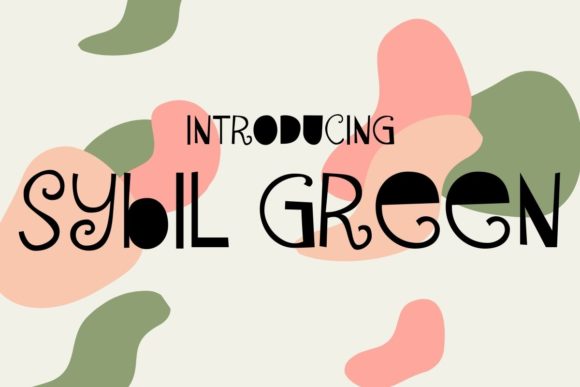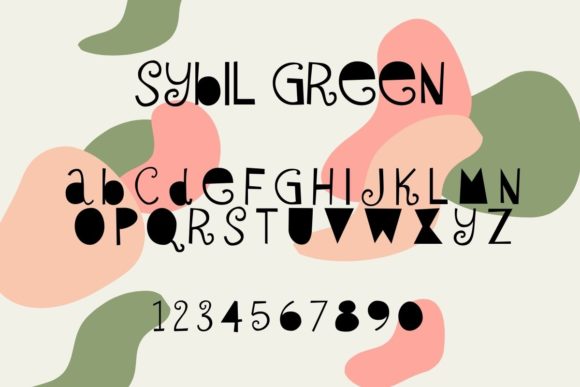
HomePersonal Use FreeSybil Green Personal Use Free Sybil Green FacebookTwitterPinterestWhatsApp 1 of 2 About Sybil Green Font Sybil Green is a funky and unique display font with curly elements and filled corners. DOWNLOAD NOW People also explored Foodies Font Pattaya Font Bougenville Flowers Font Valentine Font England Font Kilgore Font Jhonny Welbecky Font Mahesia Script Gelista Font 192 0 TagsSybil Green Font Previous articleVexler SlipNext articleFoolish Hand LEAVE A REPLY Cancel reply Comment: Please enter your comment! Name:* Please enter your name here Email:* You have entered an incorrect email address! Please enter your email address here Website: Save my name, email, and website in this browser for the next time I comment. Personal Use Free Engine Personal Use Free Read more about this font Messy Personal Use Free Read more about this font Boston Traffic Personal Use Free Read more about this font BD AsciiMax Personal Use Free Read more about this font BLOG Top 7 Google Fonts Alternatives for Faster and Privacy-Friendly Web Design (2025) Top 7 Google Fonts Alternatives for Faster and Privacy-Friendly Web Design (2025) When it comes to web typography, Google Fonts has long been the go-to... Using Fonts in Digital Marketing: Tips to Strengthen Your Brand Identity Where to Buy American Fonts Online in 2024 Best Fonts for YouTube Videos: Make Your Thumbnails Stand Out